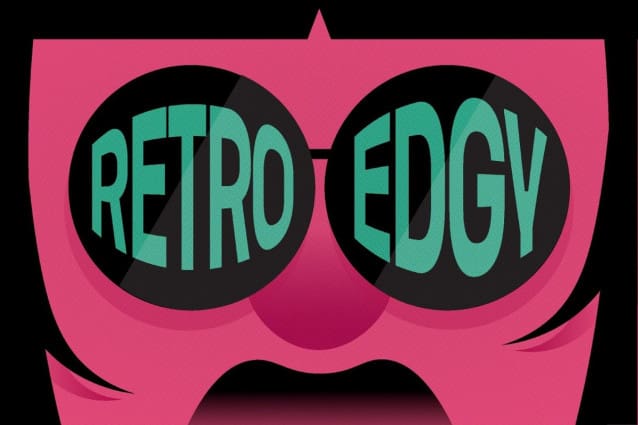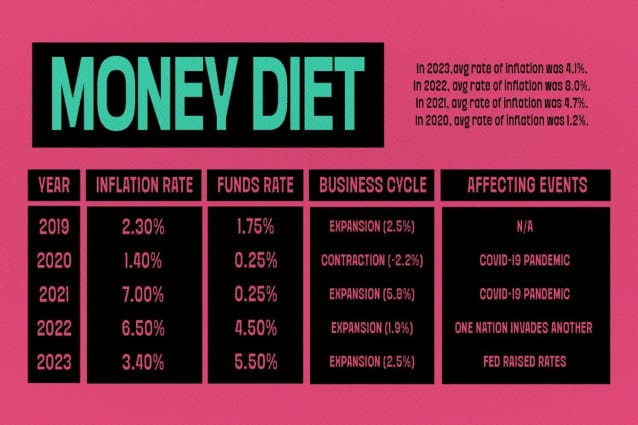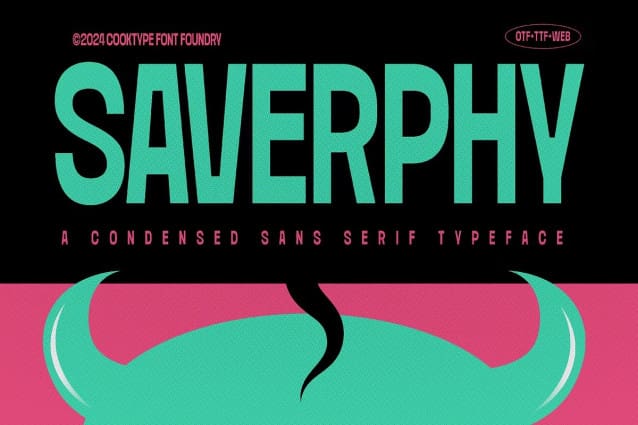
Saverphy Font
Saverphy Font is a reverse fonts with a fun, modern cartoon style. Its versatility makes it a great choice for any design project.
Saverphy is perfect for headlines, logotypes, magazines, packaging, quotes, movies, games, cover albums, book covers, and flyers, it’s a perfect solution for creating eye-catching designs that stand out in any context.